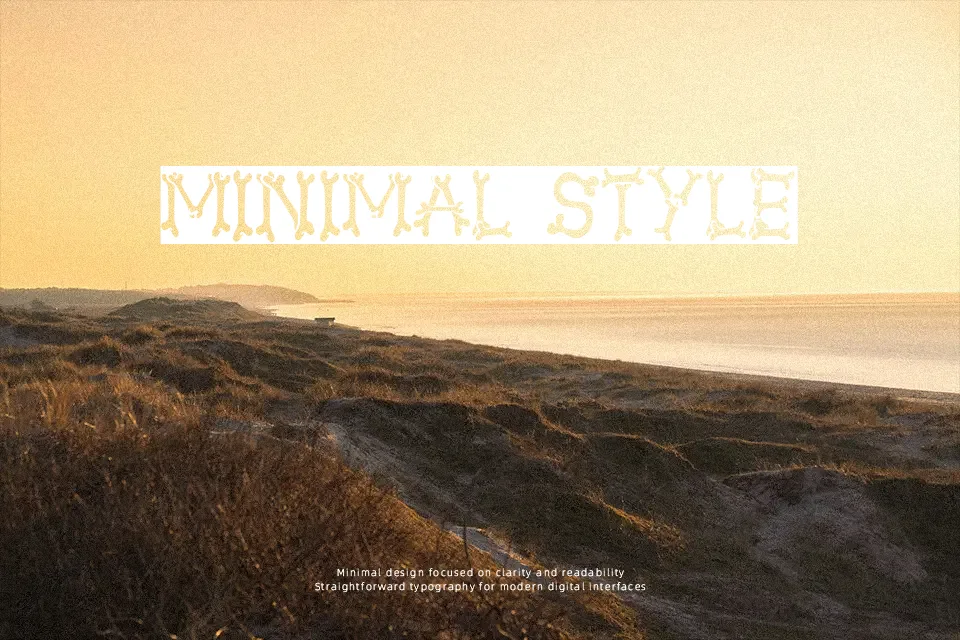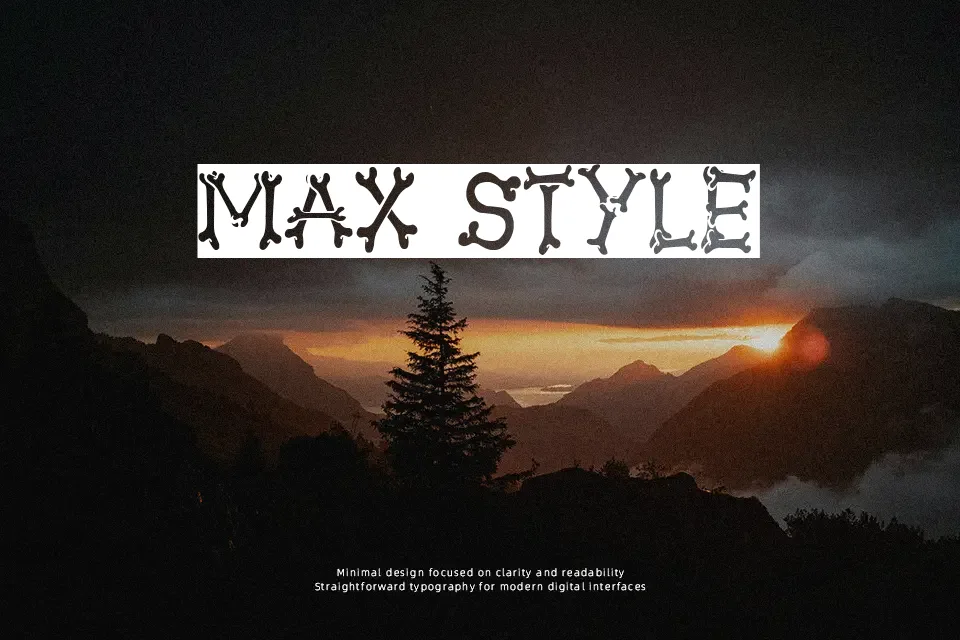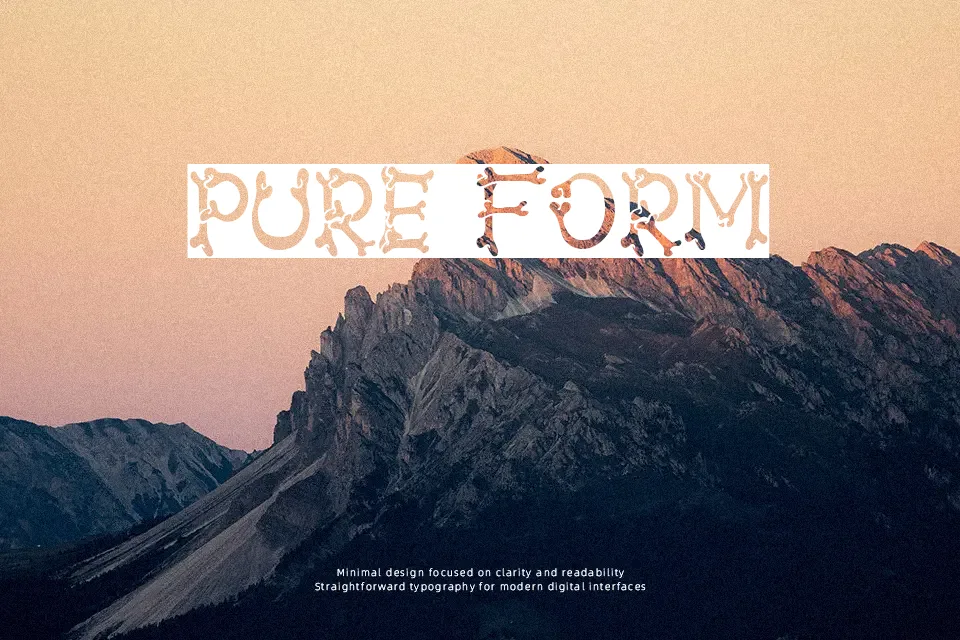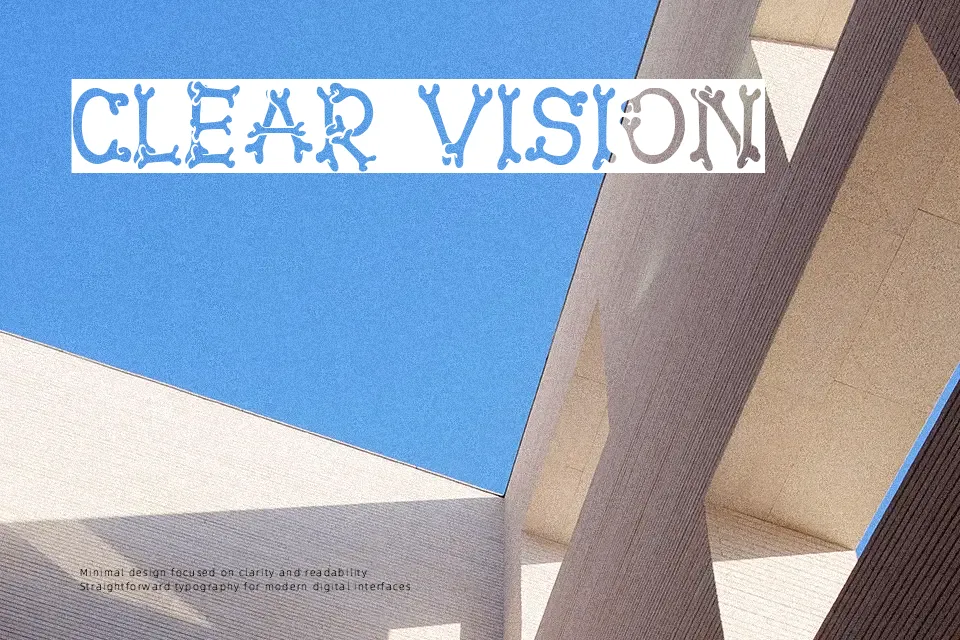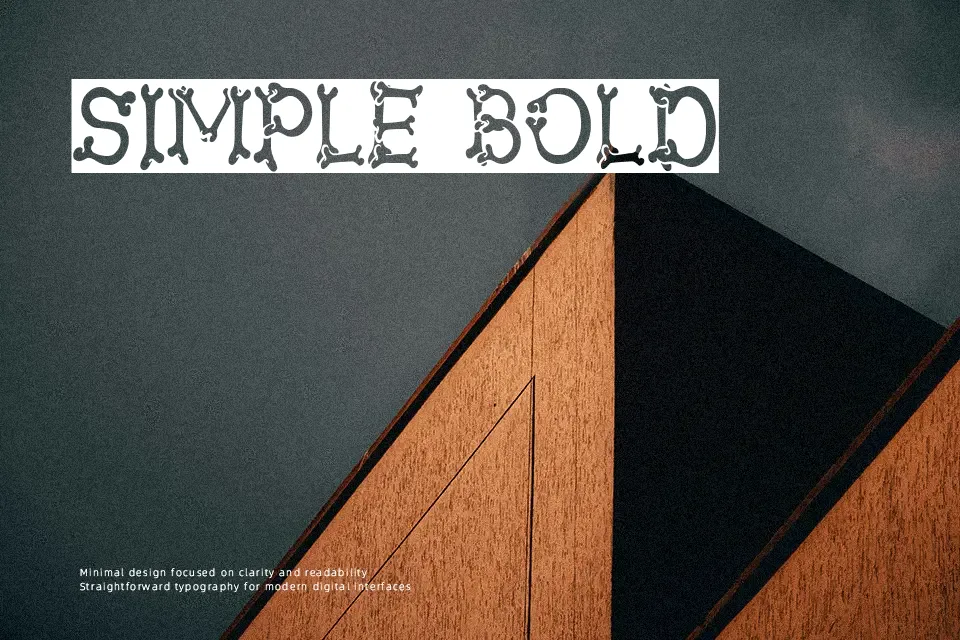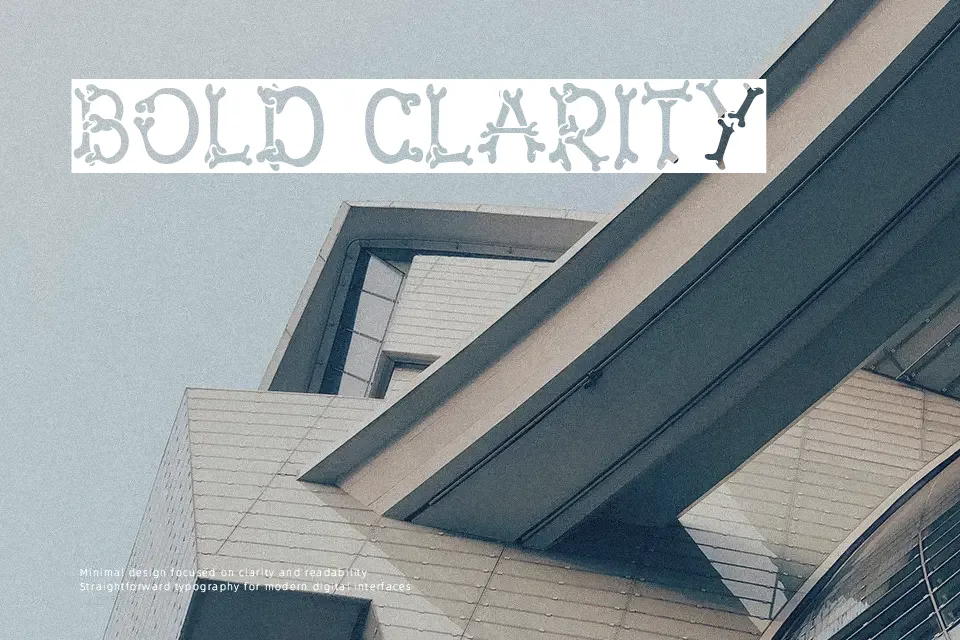
Bonesitos Font
Bonesitos Font leans into a bone-built letter structure, with irregular curves, uneven terminals, and loose spacing that feels deliberately rough rather than digital. The overall impression is decorative and slightly cartoonish, more playful than gruesome, which keeps it readable at larger sizes while still feeling strange and handmade. It shines in short text: posters, social graphics, game titles, or seasonal merch where a skeletal theme needs to be obvious at a glance. For long paragraphs or small UI text, the bony silhouettes quickly become tiring and lose clarity, so it is better paired with a simple supporting font. If you know other bone-themed display faces, Bonesitos sits on the more fun, illustrated side rather than gritty horror.
Halloween posters and flyers
Horror or spooky event titles
Themed social media graphics
Game or movie logotypes with bone motifs
Body text or long reading passages
Professional corporate branding
Small UI labels or dense data layouts
Clean minimalist editorial design
Perfect for branding, halloween, and headline, with a artistic and decorative style.